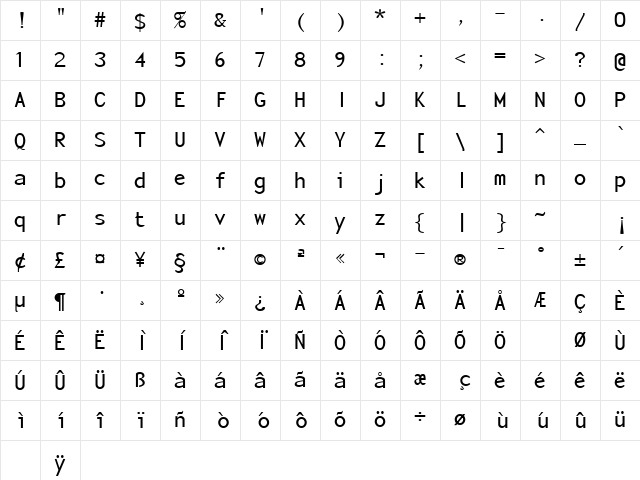
Complete Monotony Regular glyph index. Displaying only characters natively supported by Monotony Regular font.
Monotony uses fixed-width spacing throughout, giving it the structured, systematic character associated with coding environments and technical documentation.
Pro Tip: Use Monotony with slightly increased line-height for extended reading - fixed-width spacing can feel dense in longer passages without extra breathing room.